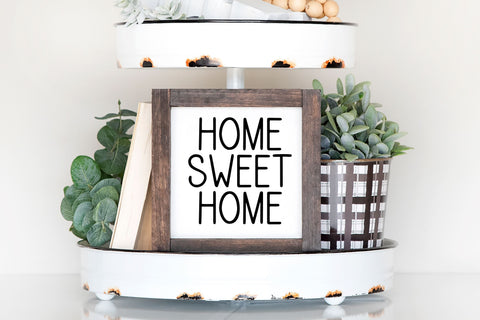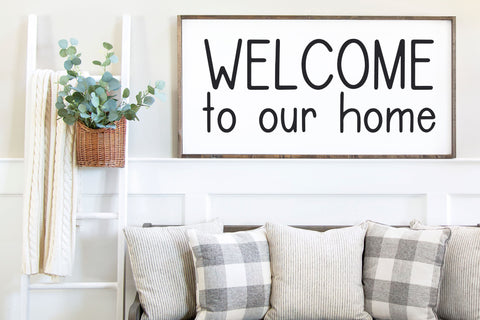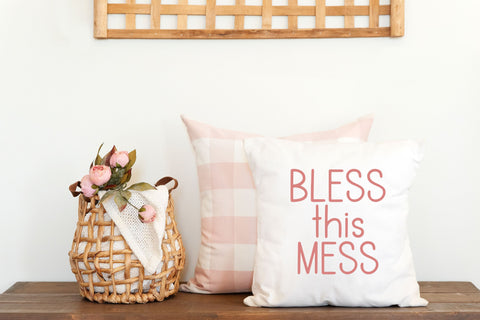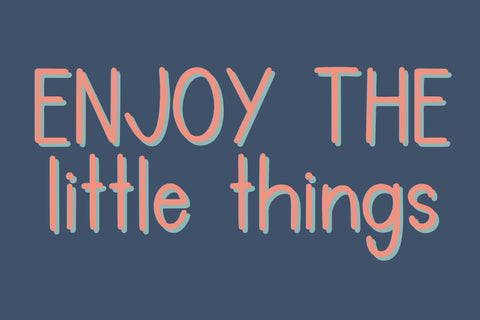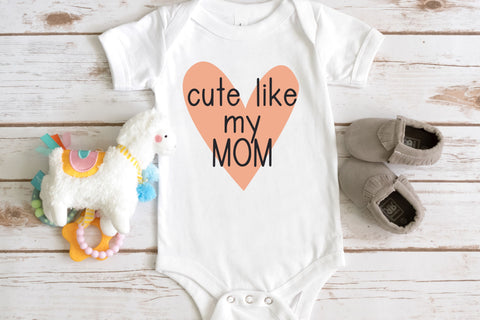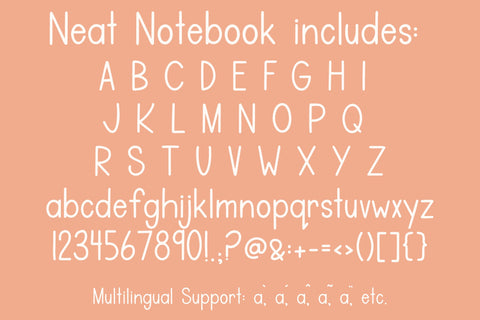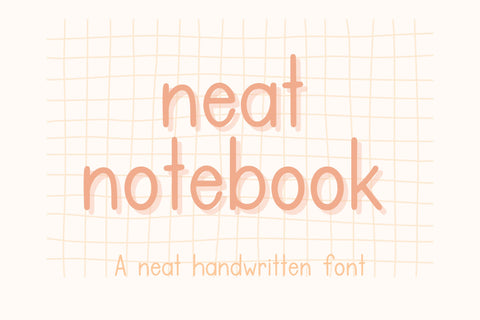
Neat Notebook, Neat Handwritten Font
Introducing Neat Notebook, a neat Handwritten Font for Cricut - a charming and cute addition to your creative projects! Our handwriting font is compatible with Cricut SVGs, Goodnotes, Procreate, and many other programs. Whether you're crafting cards, scrapbooking, or designing SVG files, this font will bring your creations to life. Get ready to impress with our amazing Cricut font collection and unlock endless possibilities for your artistic endeavors!